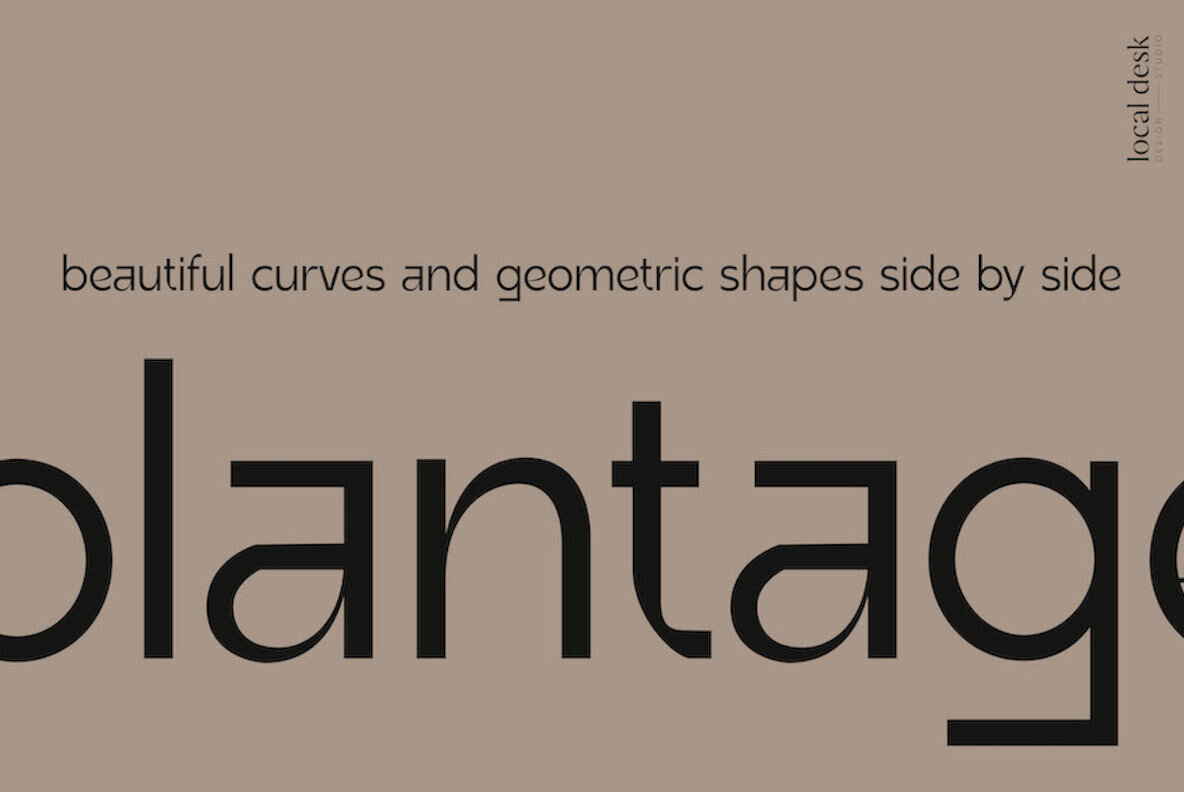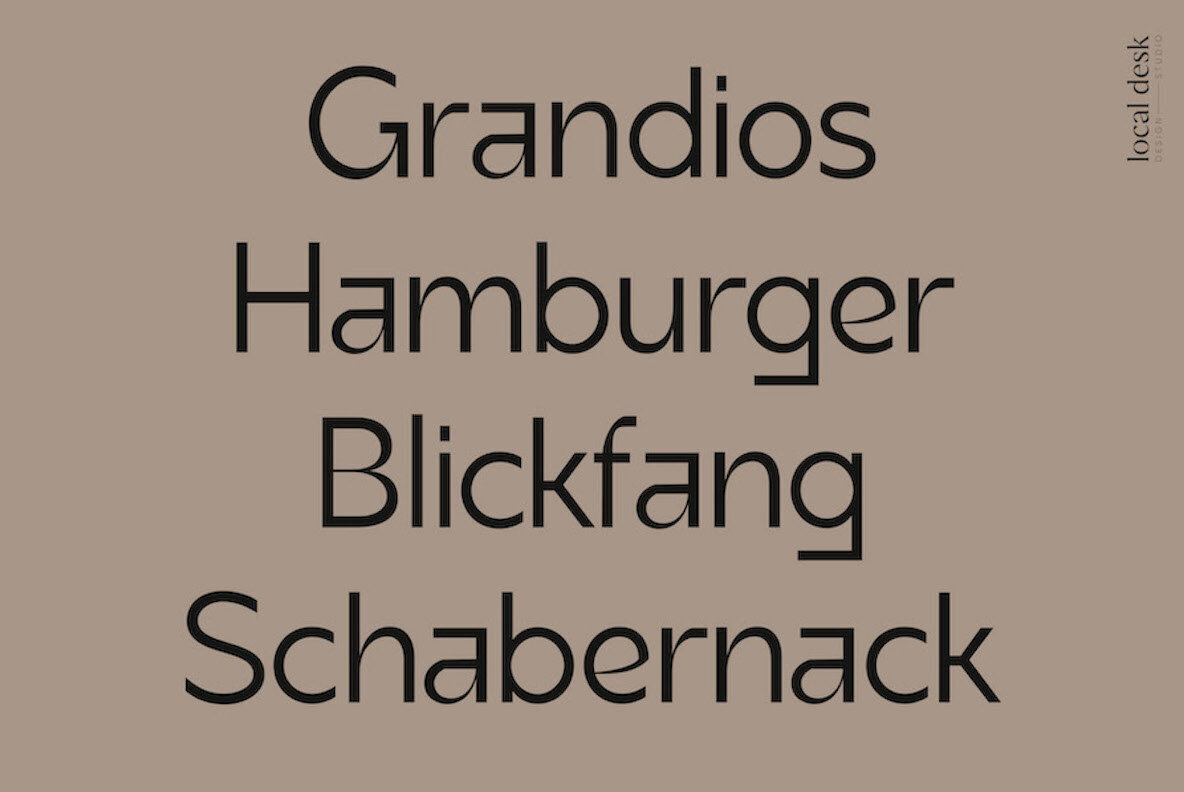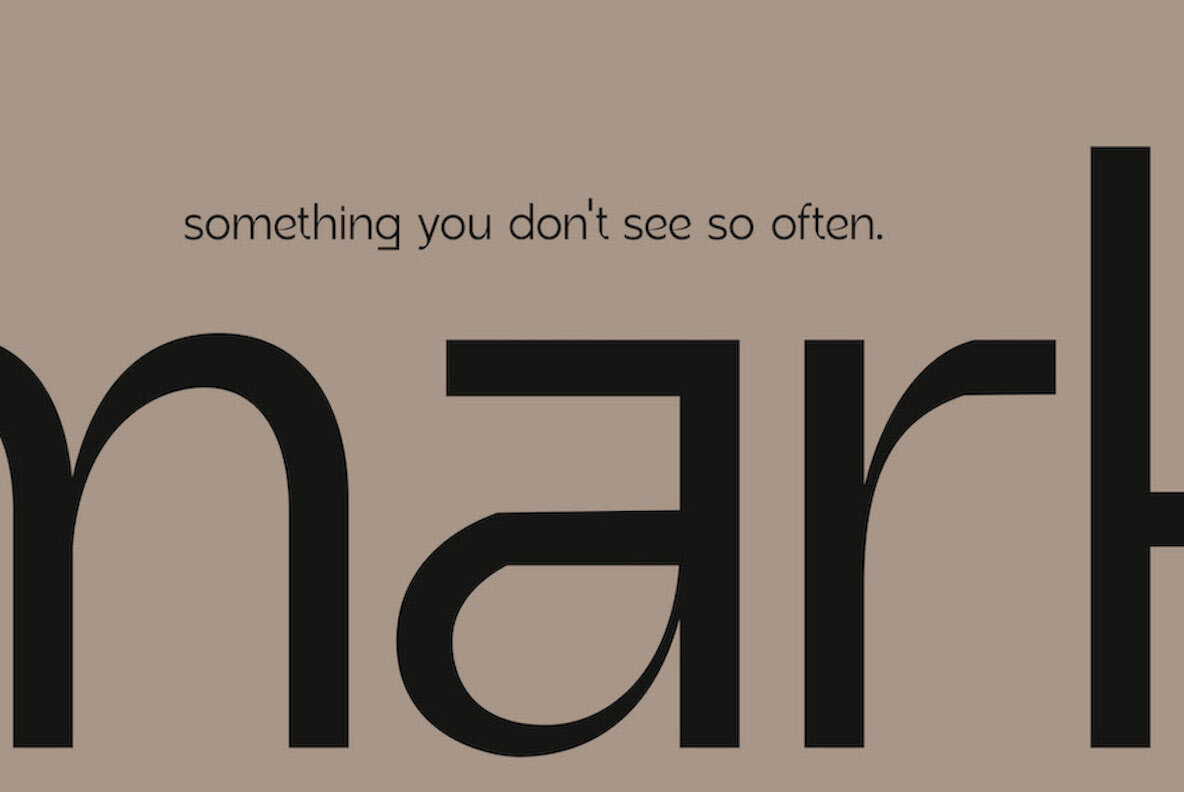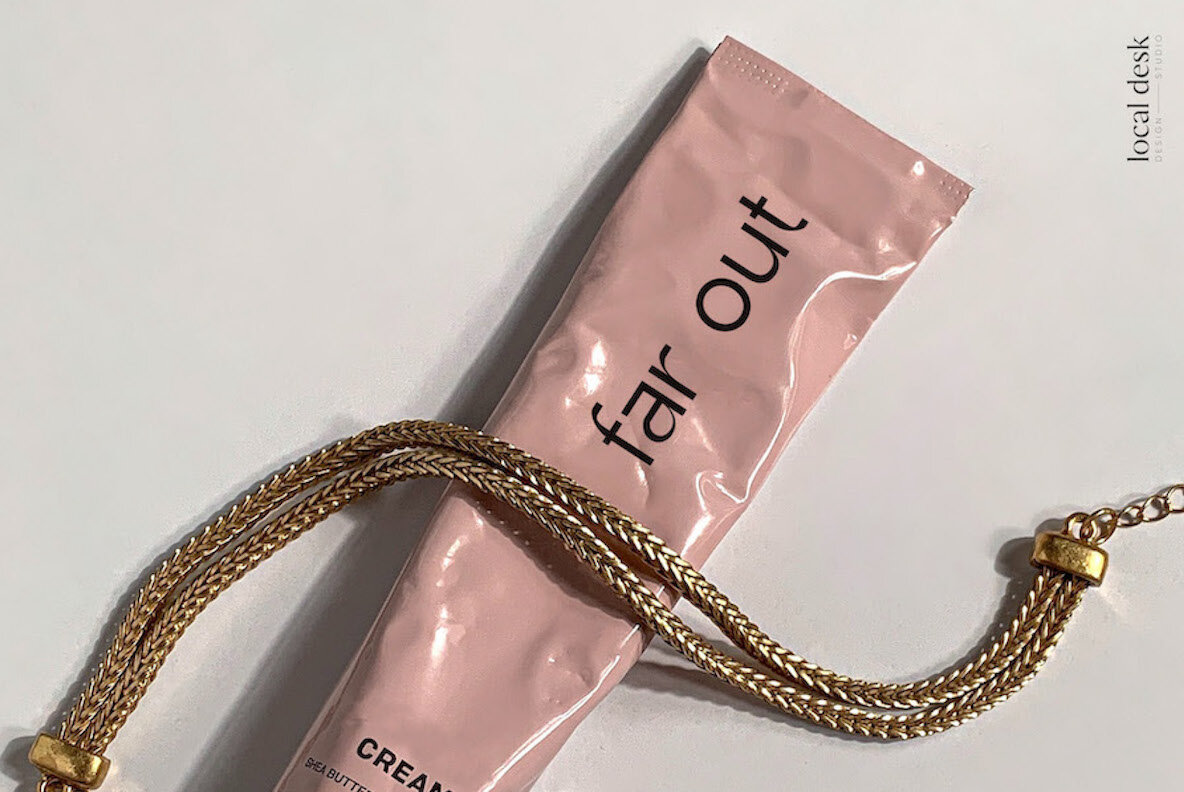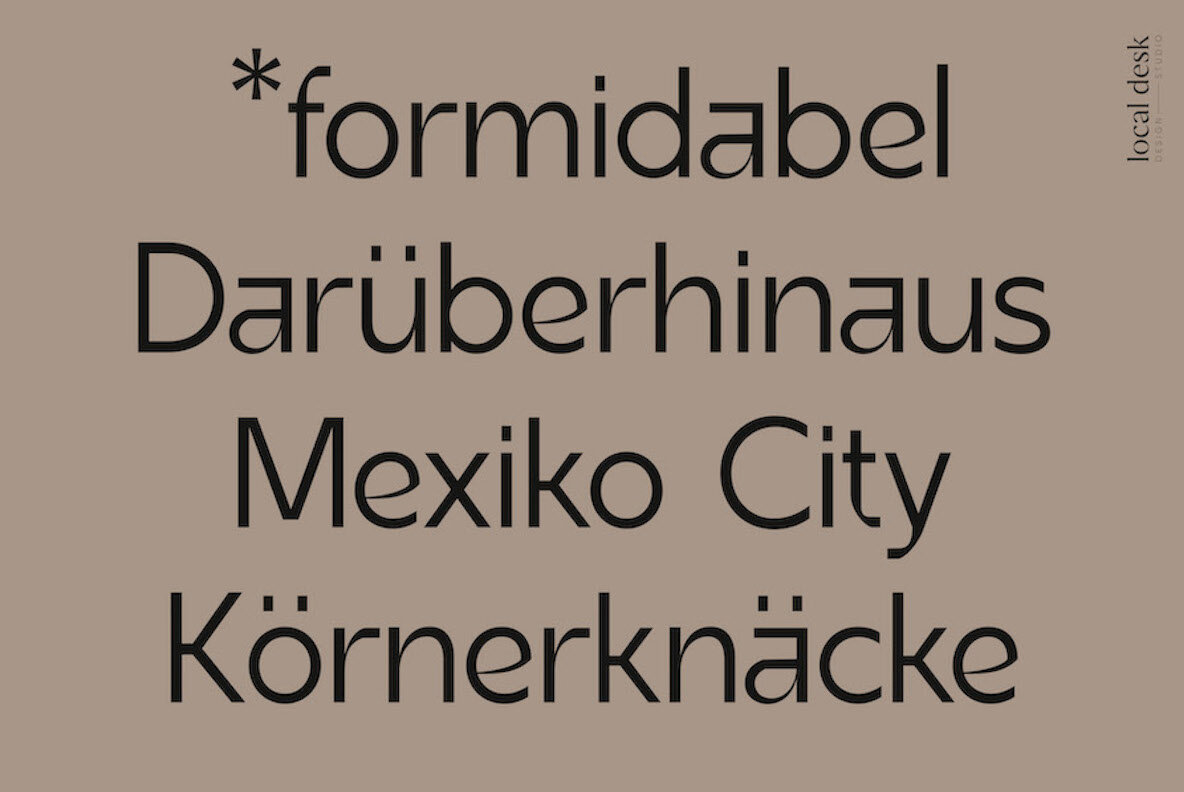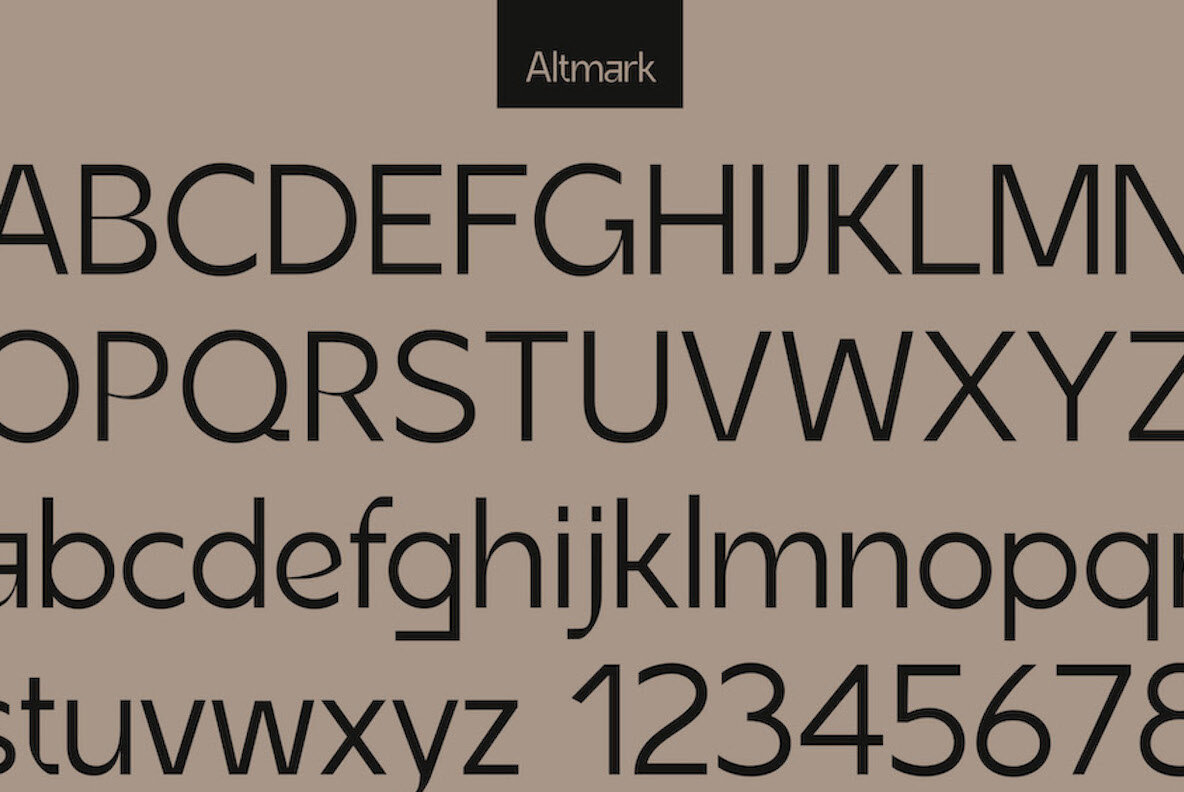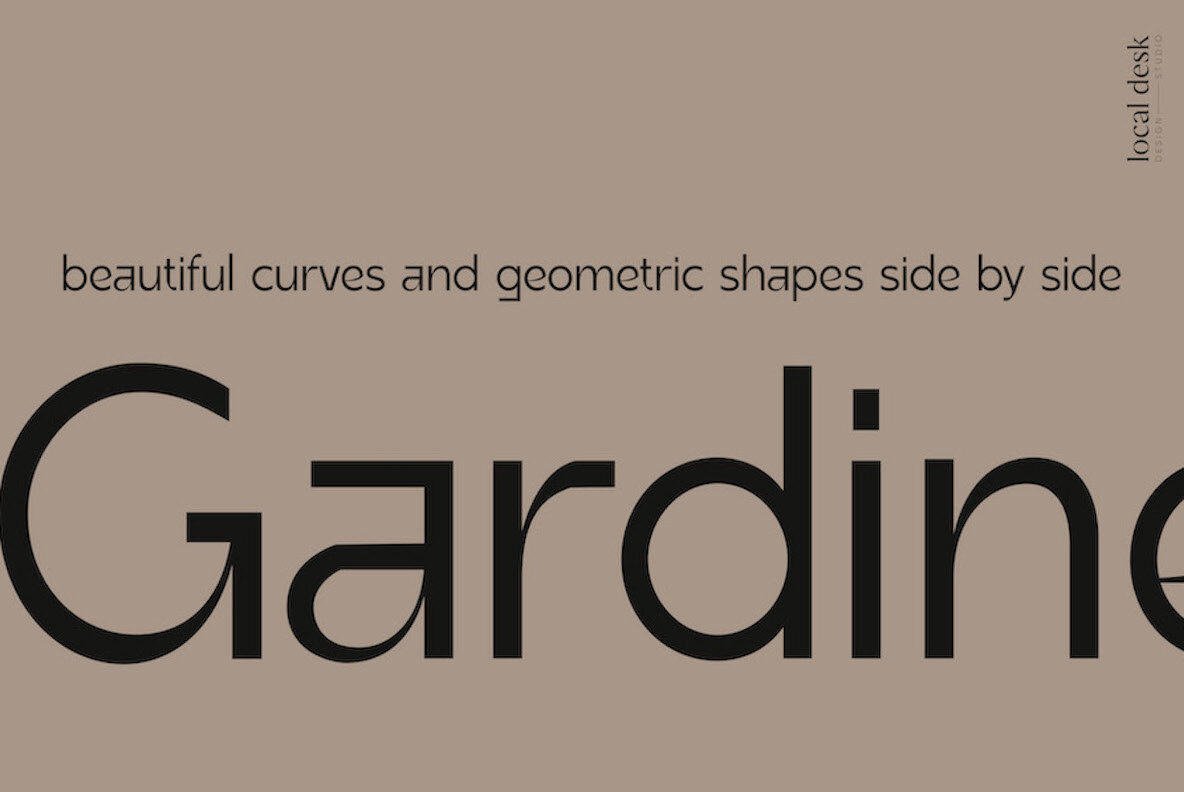
Altmark Font
Altmark Regular
Altmark Sans is a unique and modern sans serif typeface with a clean & edgy feel. Its refined shapes, curves and contrast add to a very unique vibe and create interest und balance. it is very well suited for stand-out designs that feel elevated and sophisticated while being young, fresh and unique. Check out the sample images above to see what you can create with Altmark Sans, and test out any sample text you'd like test type form. Includes: